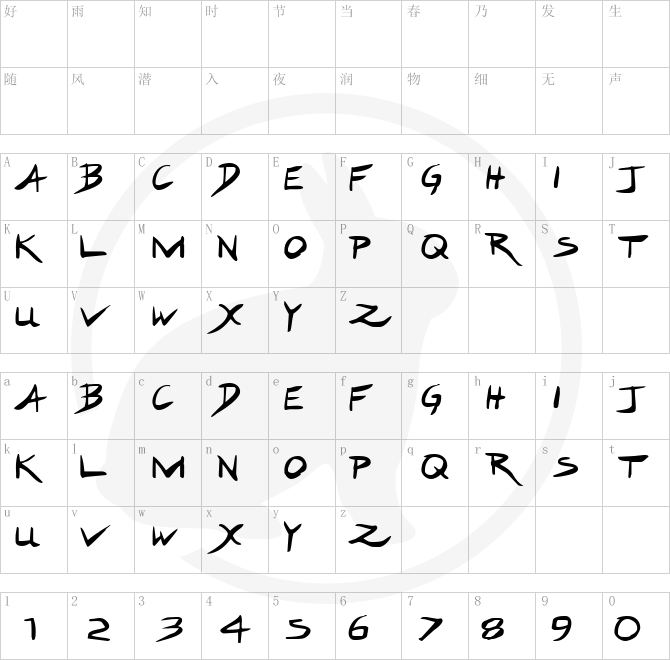
- Font Name:Hakturus Expanded
Hakturus-Expanded.ttf is a very beautiful artistic font, Hakturus-Expanded.ttf is widely used in the design and printing of various books and pictures,Hakturus-Expanded.ttf has a strong visual impact,Hakturus-Expanded.ttf is a commonly used font in newspapers, magazines and books, and is used in posters, e-commerce Poster design, store design, logo design, font design and other fields.Hakturus-Expanded.